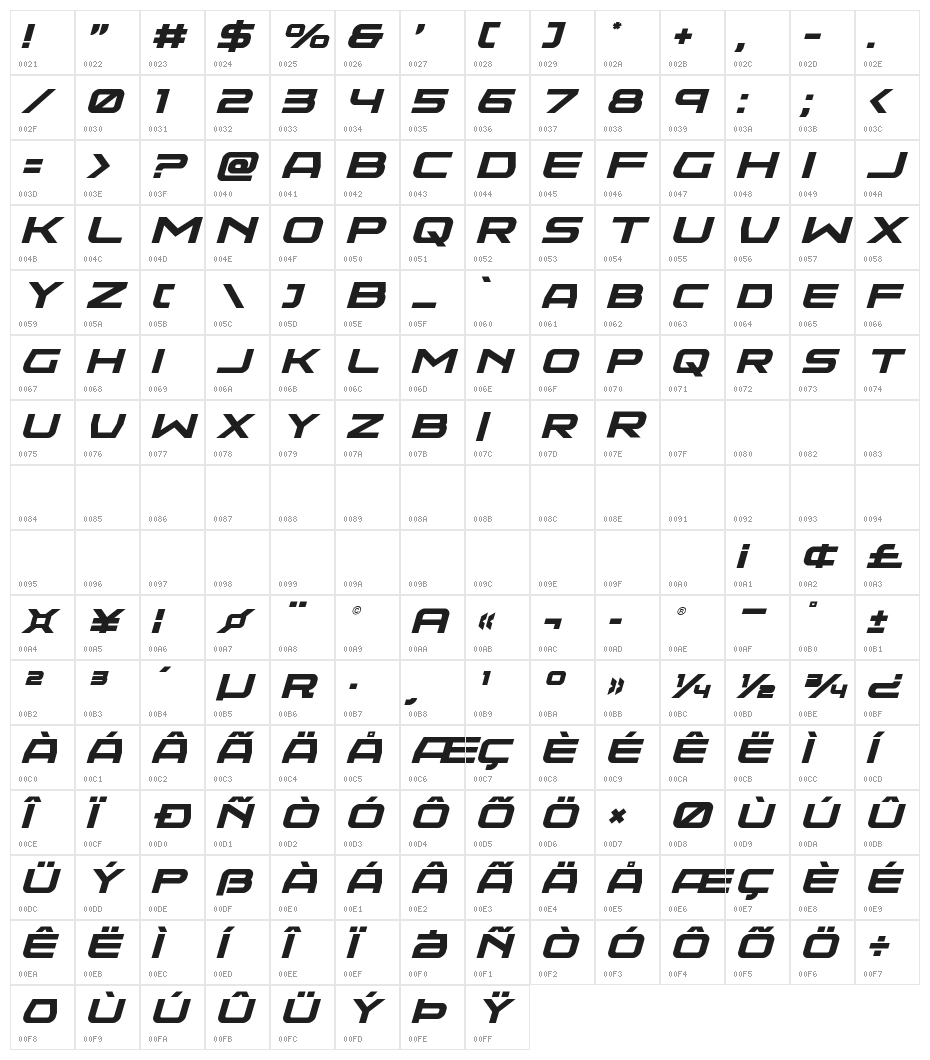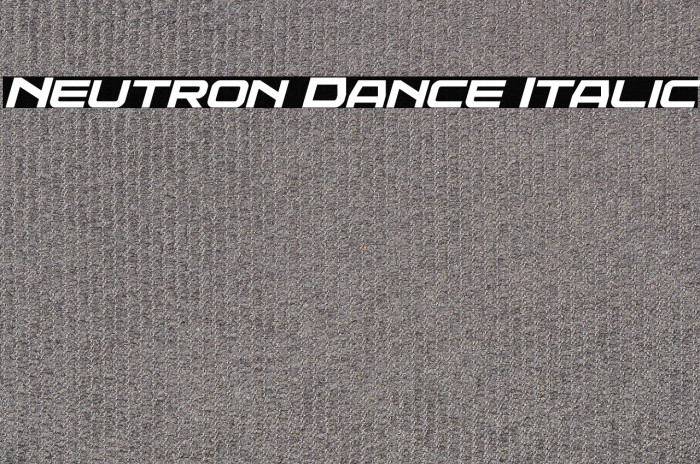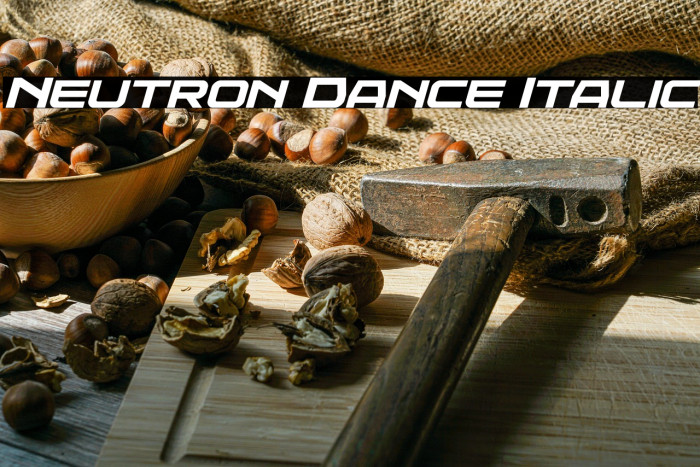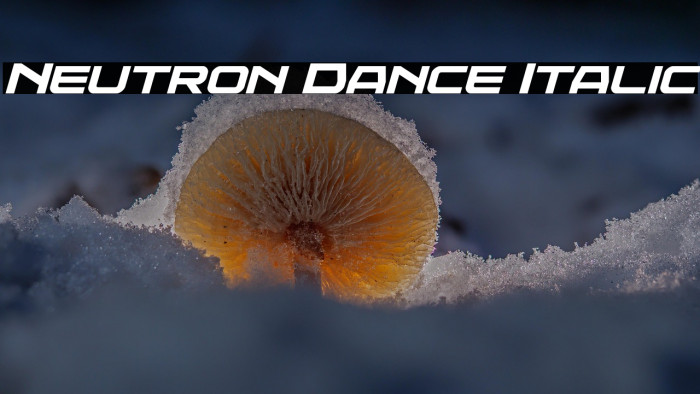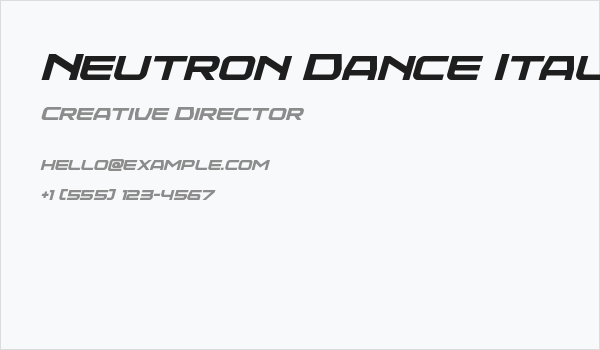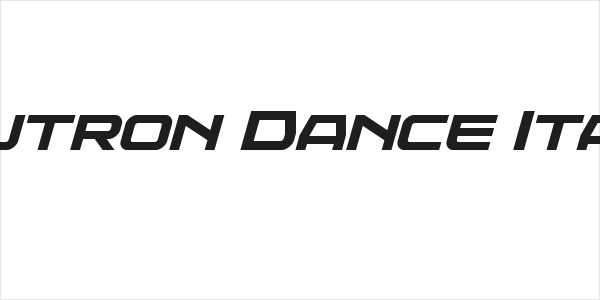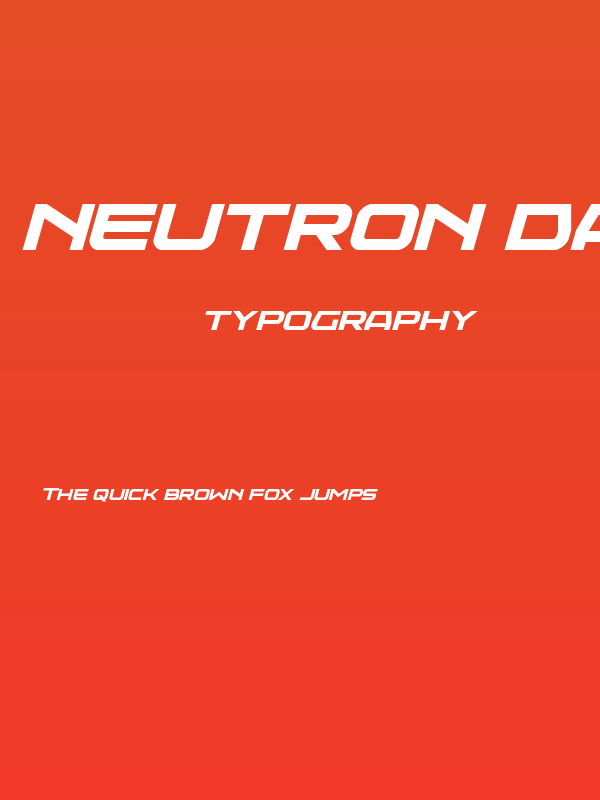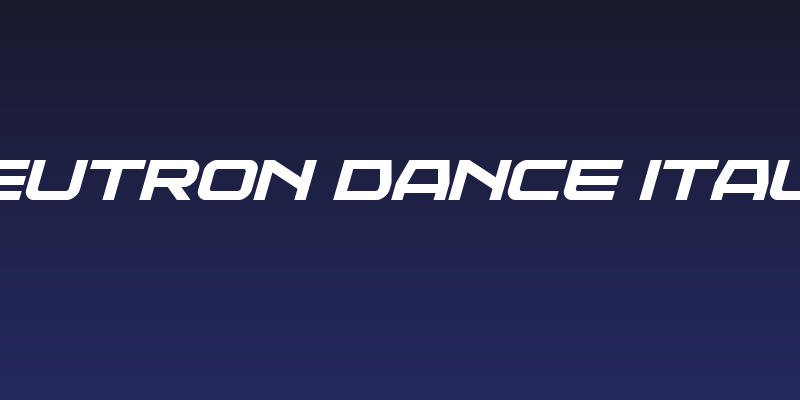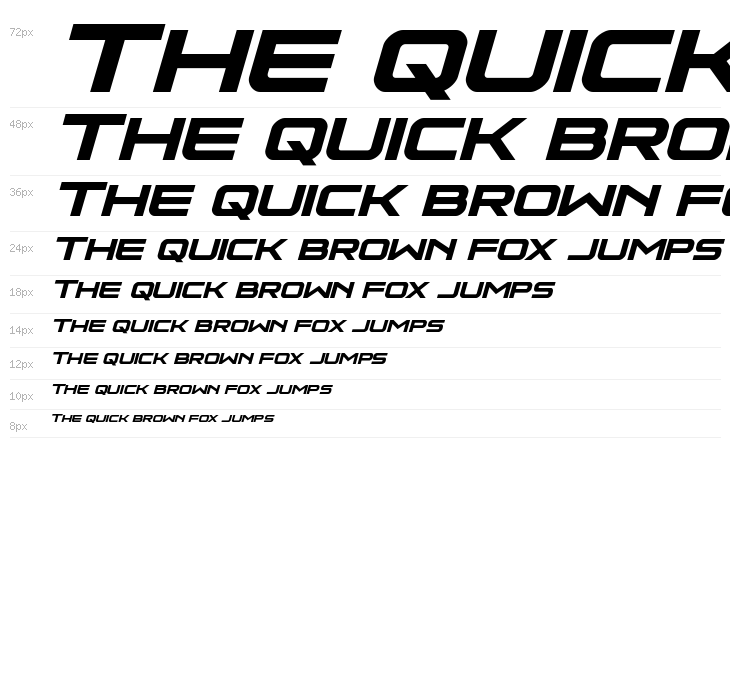
Neutron Dance Italic Font
Neutron Dance Italic Description
This font features a sleek, futuristic design with a distinct italic slant, giving it a dynamic and forward-moving appearance. The characters are bold and angular, with sharp edges and a geometric structure that conveys a sense of speed and modernity. The uppercase and lowercase letters maintain a consistent style, ensuring readability while adding a unique flair. The numerals and special characters are crafted with the same attention to detail, making them suitable for a variety of applications. The font's overall aesthetic is both contemporary and versatile, making it ideal for projects that require a cutting-edge look.
| Proposed Projects | Ideal for technology branding, sci-fi themed projects, video game titles, and modern advertising campaigns. |